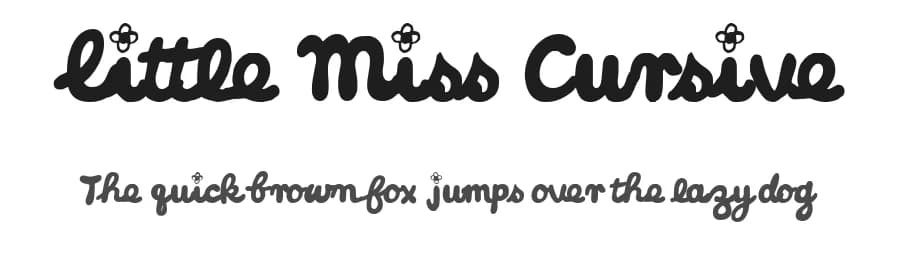
About Little Miss Cursive Font
Little Miss Cursive Font is a script font that shines as a display or heading face. Pair it with a clean sans-serif or serif font for body text β the contrast creates a clear hierarchy while the two styles stay balanced and easy to read.
Little Miss Cursive Font